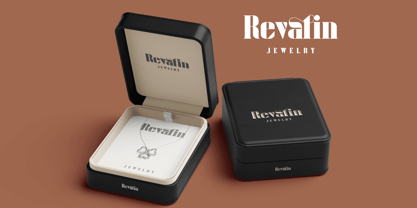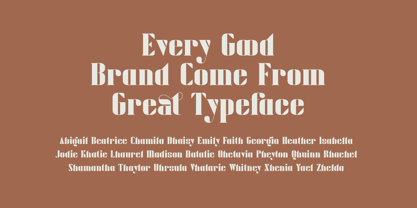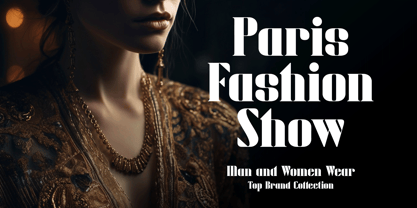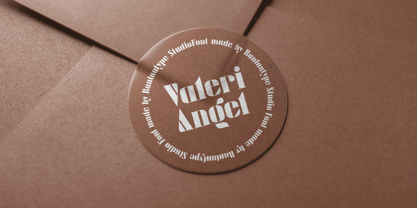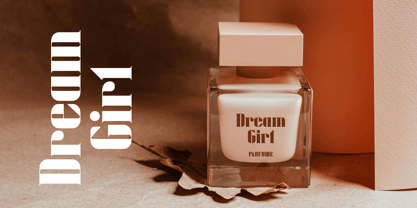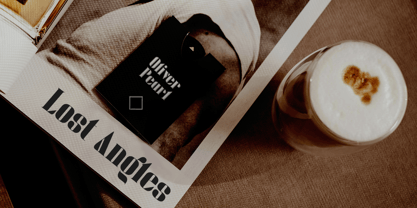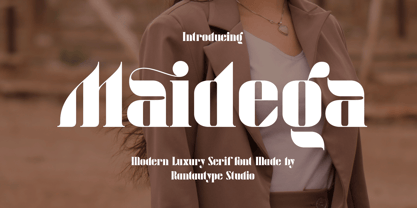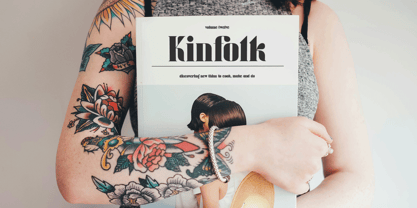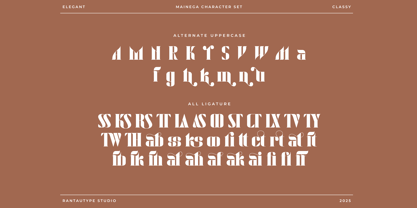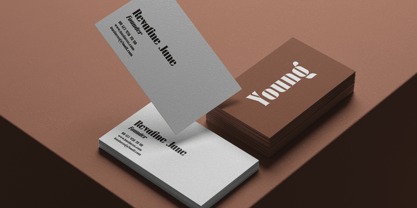
Maidega
by RantauType
The Maidega Font Family was designed by Yudi Pratama Chandra and published by RantauType. Maidega contains 2 styles and family package options. More about this family
Maidega is modern serif font with luxury character style. Maidega come with bold and we make it look fashionable to create your design project stand out. Maidega is a professional choice for any creative endeavor, chic, lifestyle design such as logotype, advertisements, watermark on photography, stationery, branding project, display and magazine, invitation, corporate brand, product design, label, business project and many other project with elegant touch.
• Ligature and alternate